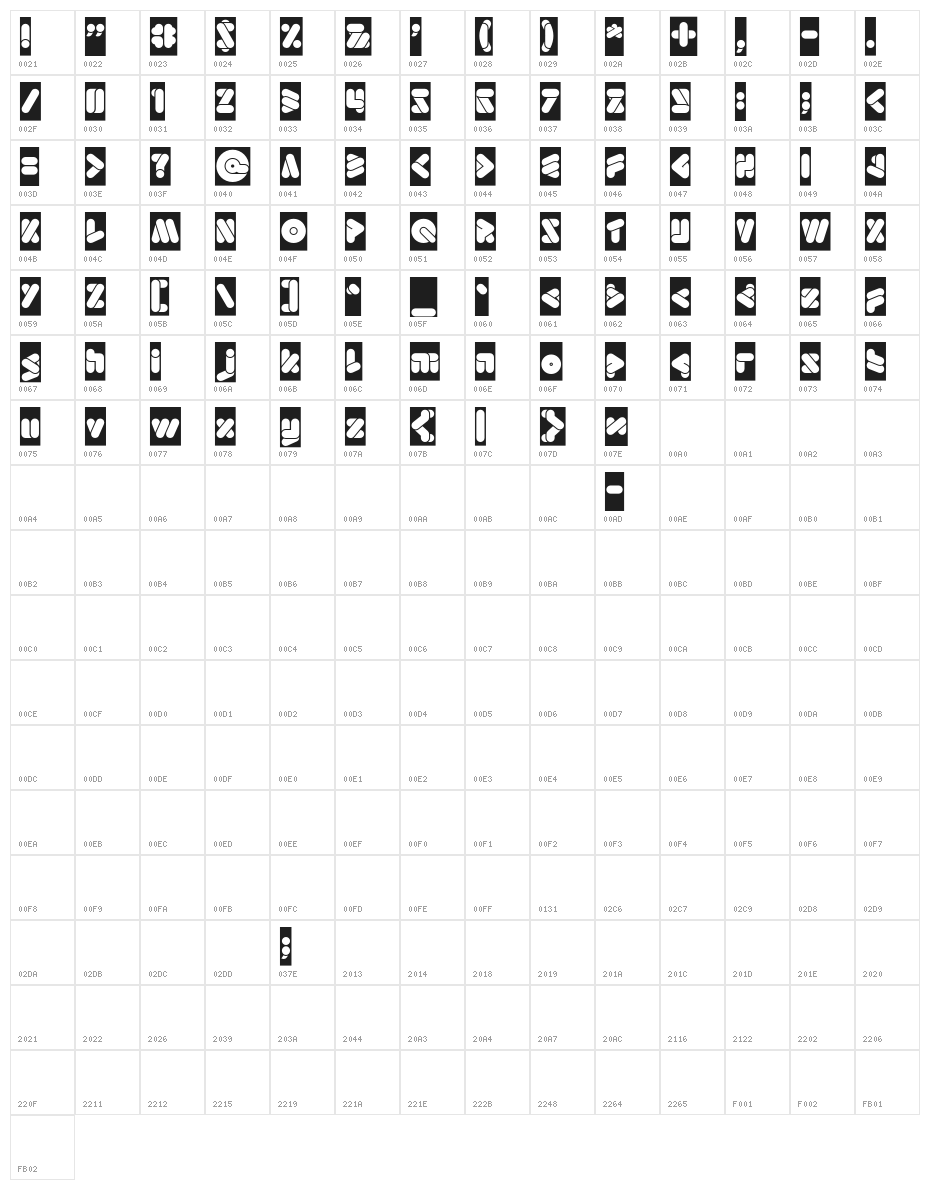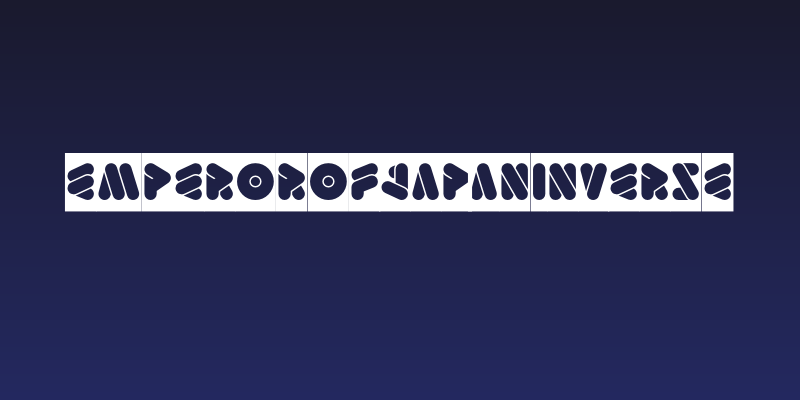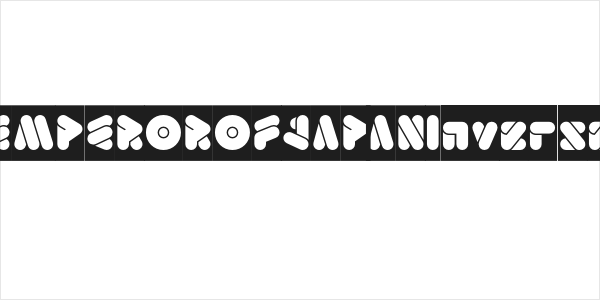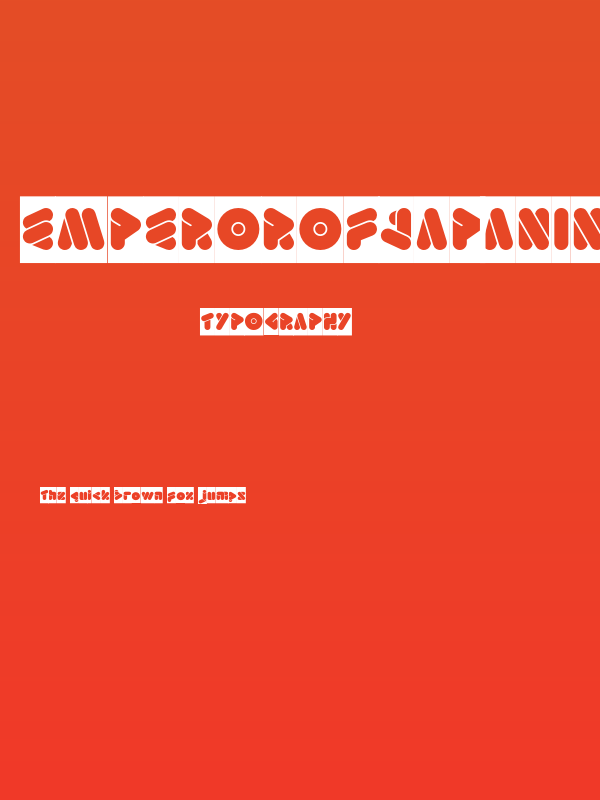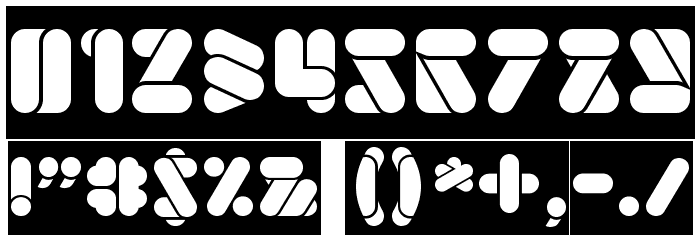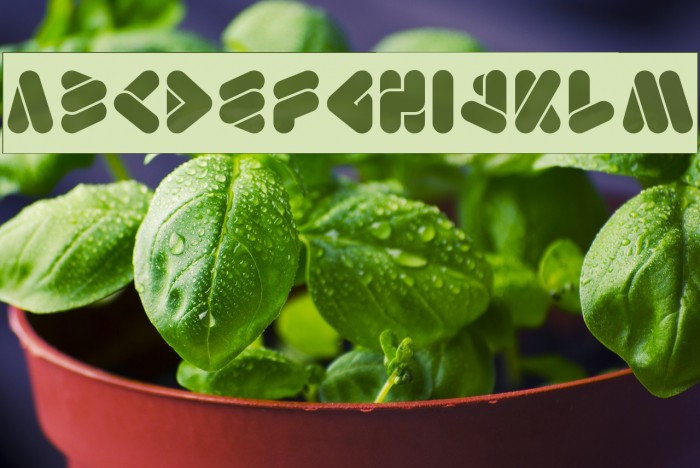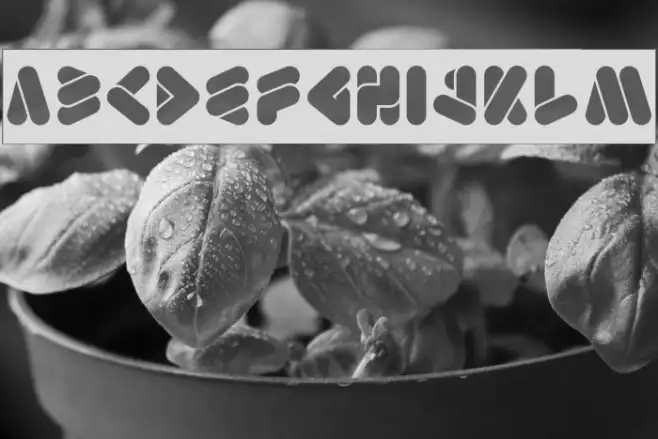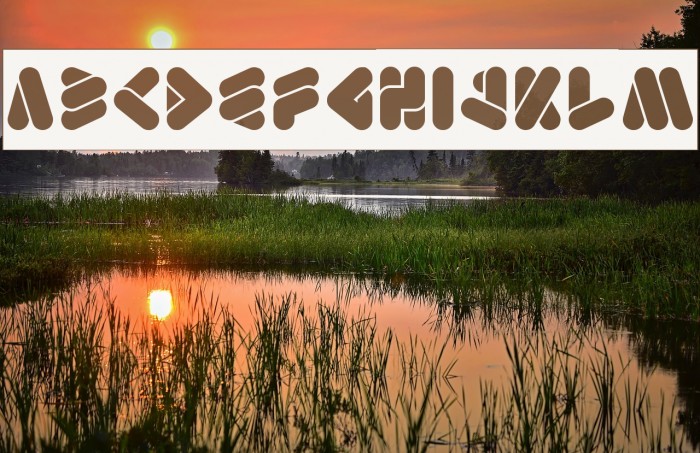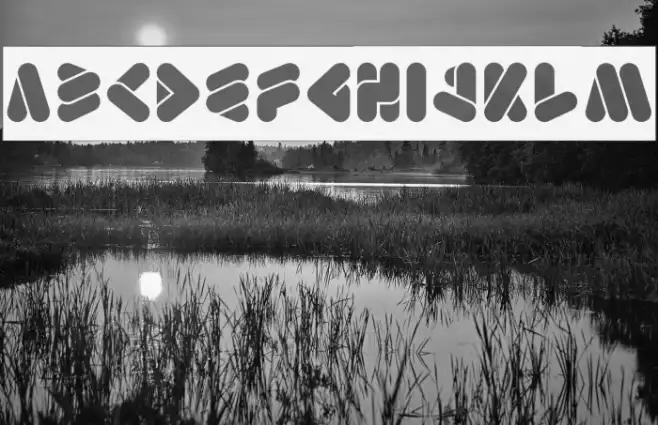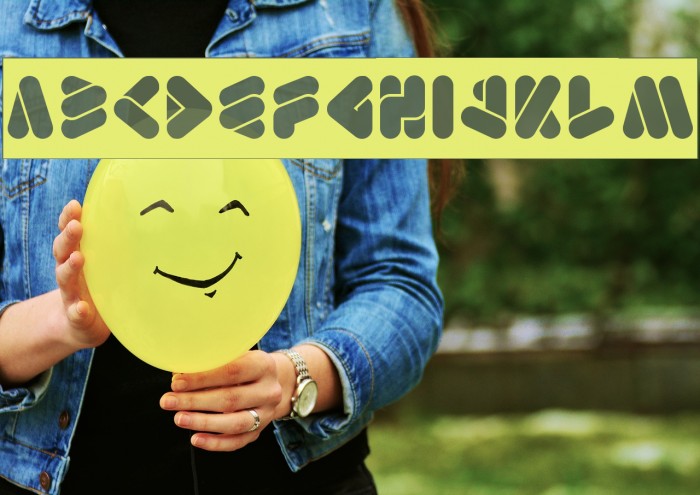
EMPEROROFJAPANInverse Font
EMPEROROFJAPANInverse Description
This font features a bold and modern design with a unique geometric style. Each character is composed of thick, rounded shapes that create a striking visual impact. The letters and numbers are crafted with a consistent width, giving the font a monospaced appearance. The use of negative space within the characters adds an artistic flair, making it ideal for creative and contemporary projects. The font's design is both playful and futuristic, with a high contrast between the thick strokes and the background. This makes it highly legible and suitable for attention-grabbing headlines or logos.
| Proposed Projects | Ideal for modern branding, eye-catching headlines, and creative design projects. |